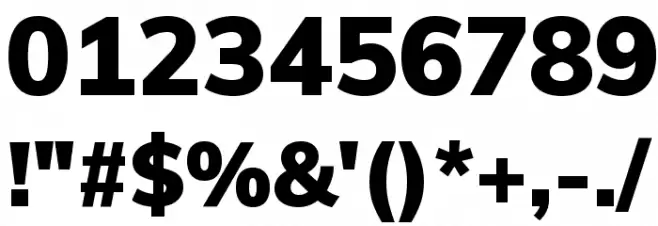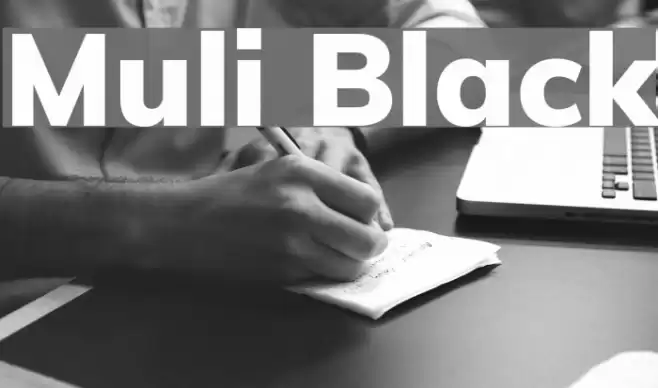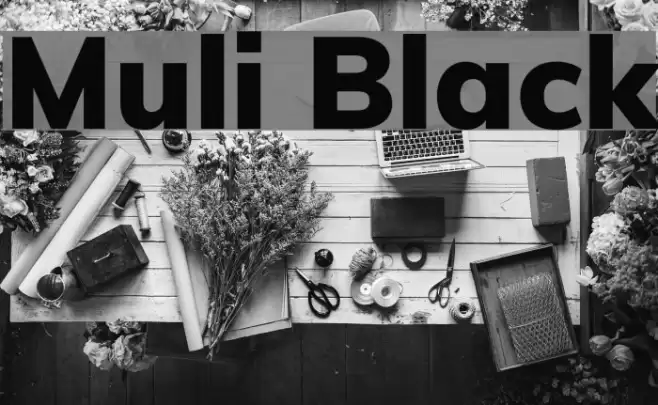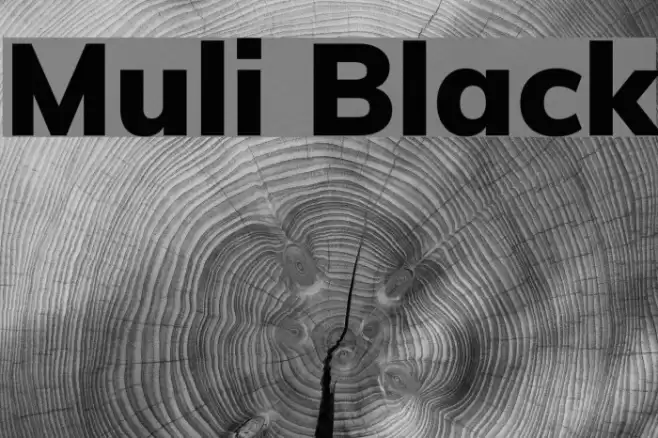
Muli Black Font
Muli Black Description
This font features a bold and modern sans-serif style with clean lines and a strong presence. The uppercase and lowercase letters are well-proportioned, offering a harmonious balance that enhances readability. The numerals are distinct and clear, making them suitable for various applications. Special characters are included, maintaining the font's cohesive design. The overall appearance is sleek and contemporary, making it versatile for both digital and print media.
| Use Case | Headlines, Logos, Branding |
| Proposed Projects | Ideal for branding, advertising, headlines, and digital interfaces where a modern and bold statement is needed. |